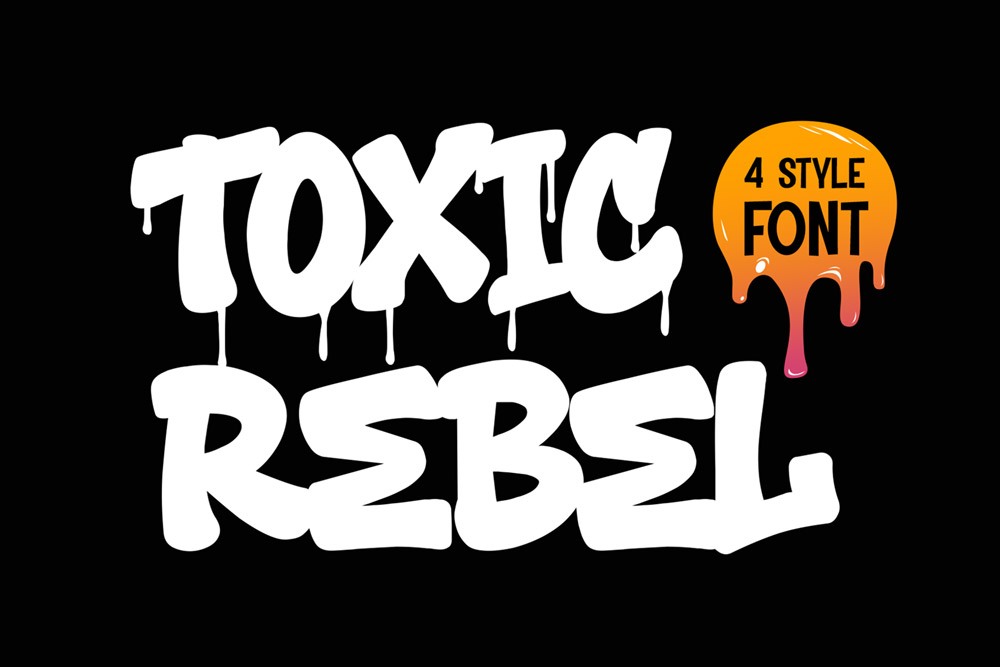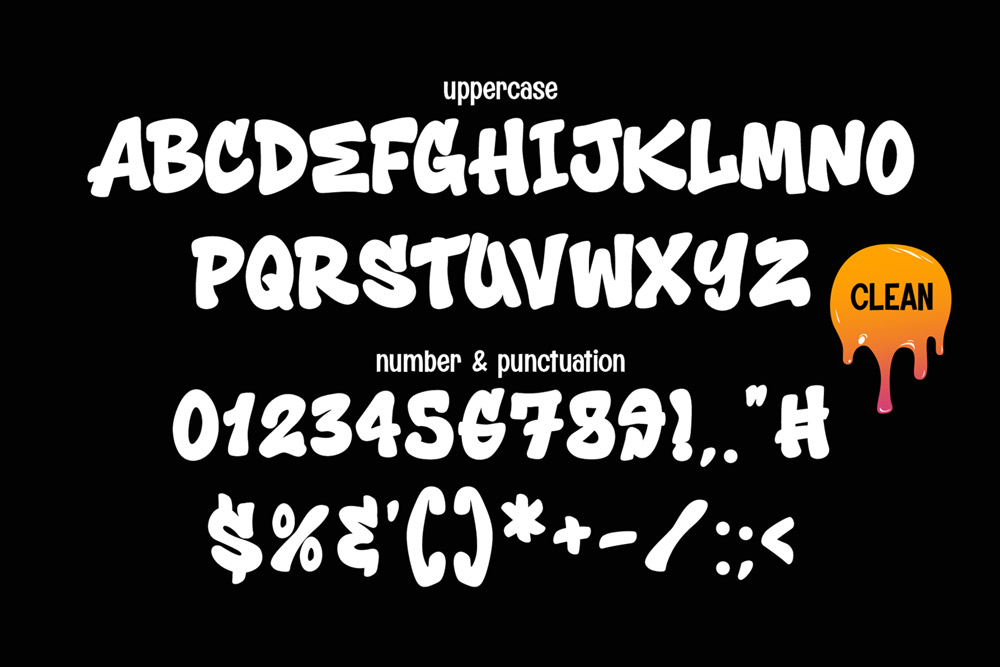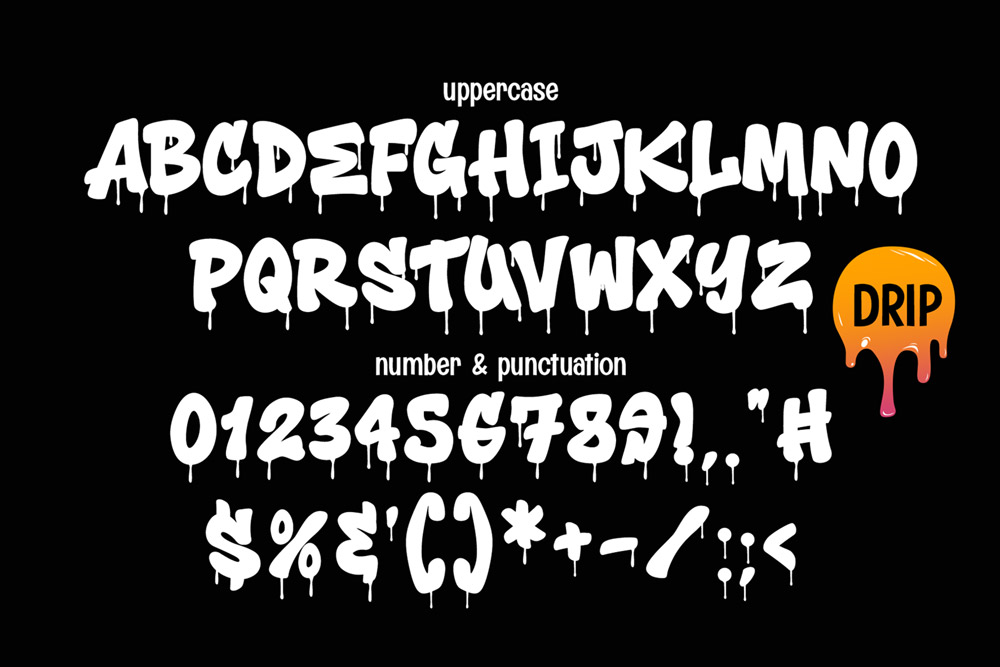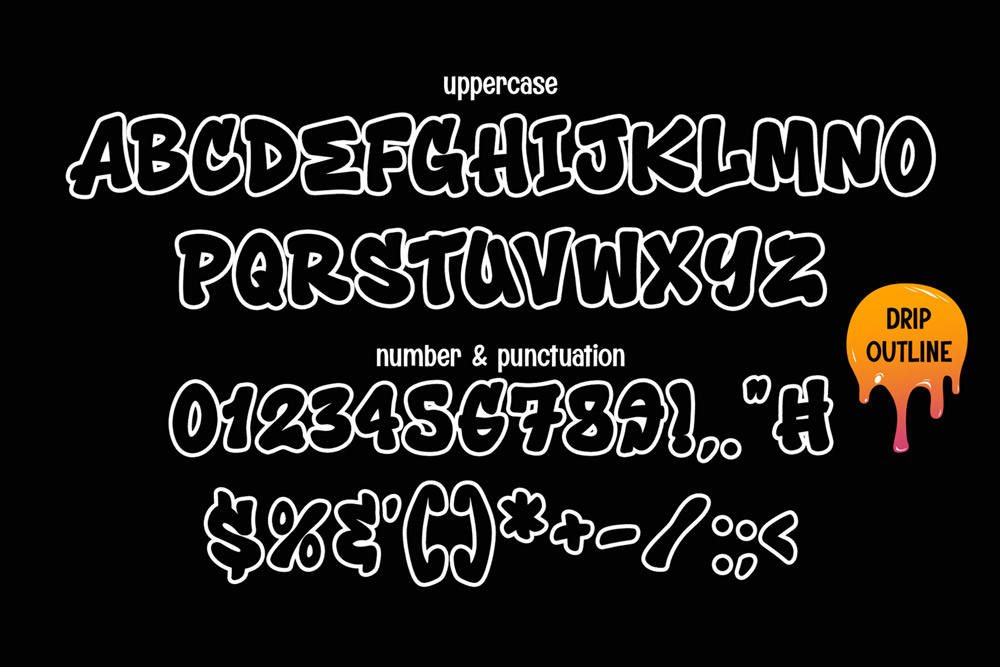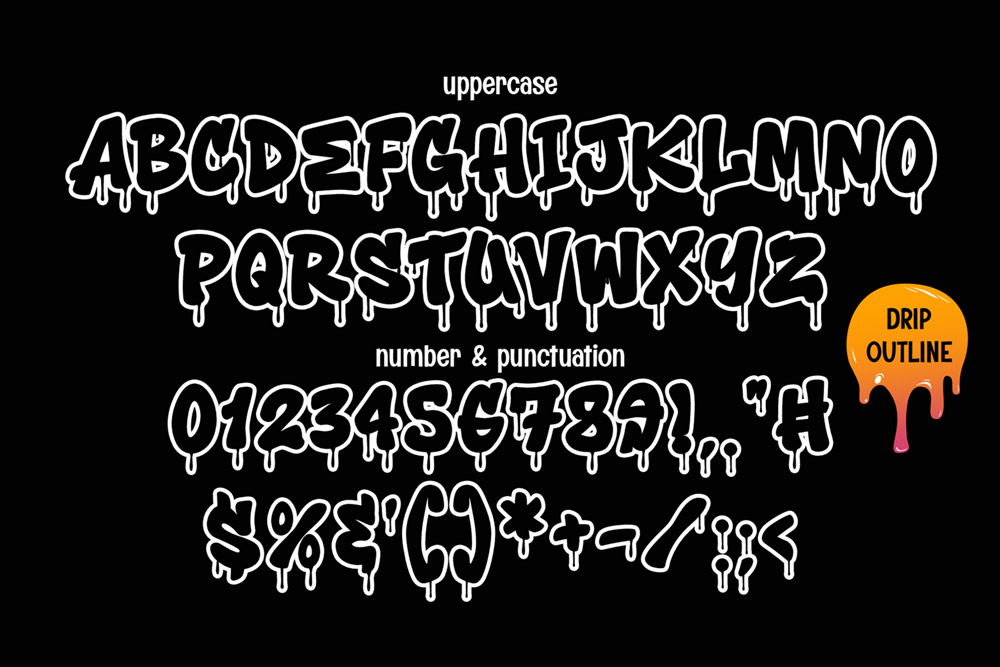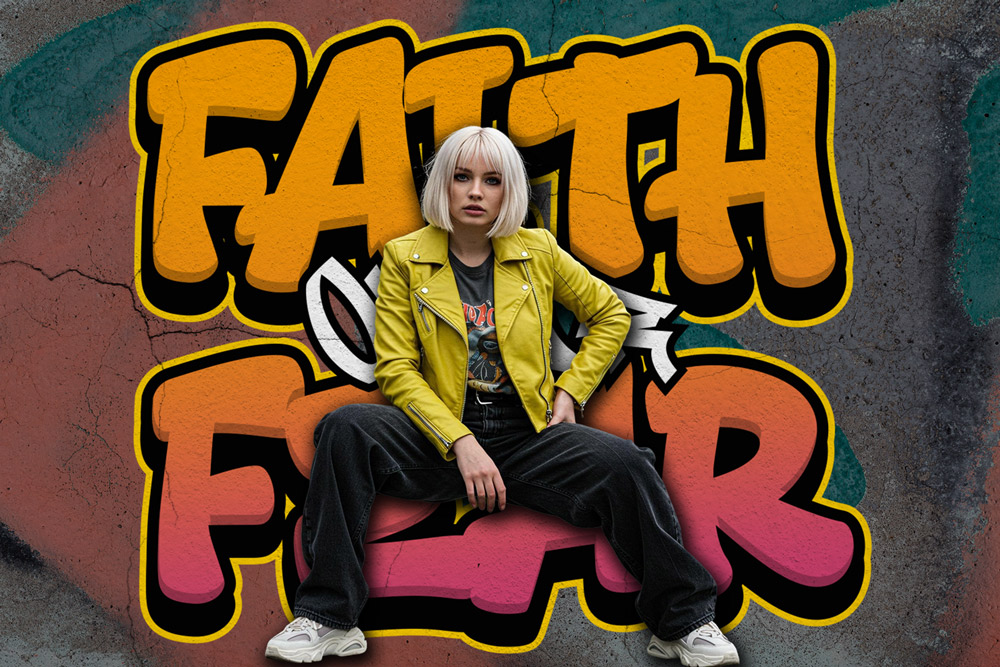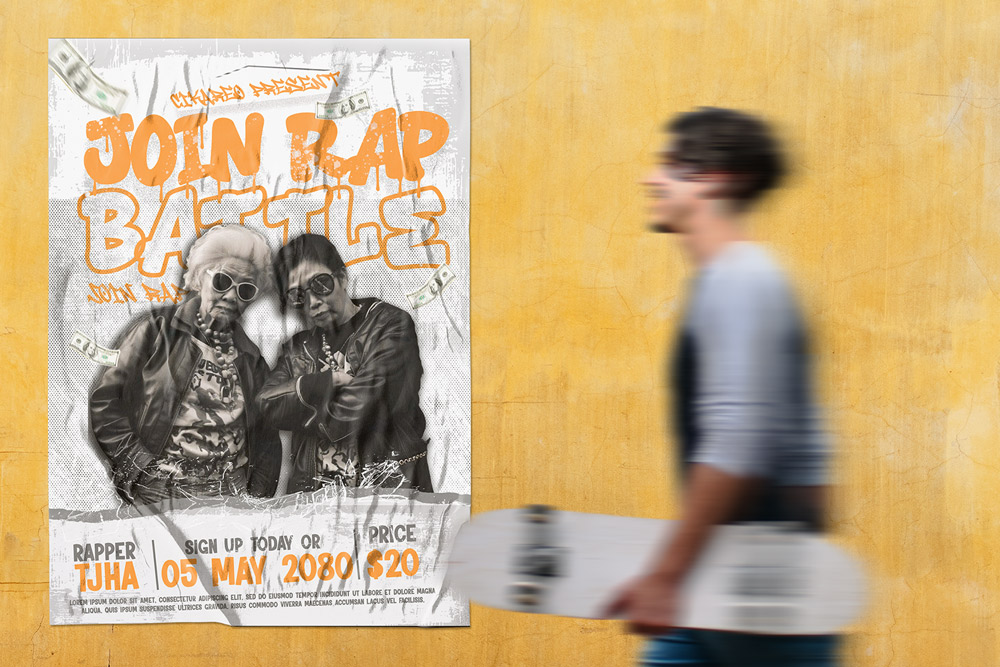
About Toxic Rebel
If you are searching for a bold graffiti font that captures the rebellious energy of urban streets, look no further than Toxic Rebel – Outlined Graffiti Font with 4 Styles. This font is designed for creatives who want to inject raw street aesthetics into their projects while keeping flexibility and multilingual usability at the core. With uppercase characters, full multilingual support, and four unique styles, Toxic Rebel is more than just a font—it’s a creative weapon for designers who thrive on edgy, rebellious, and high-impact visuals.
Why Toxic Rebel Stands Out in the World of Graffiti Fonts
The graffiti niche is one of the fastest-growing styles in design, especially in streetwear branding, album covers, poster designs, and digital content creation. Toxic Rebel captures the essence of this movement with its powerful outlines, dripping textures, and versatile clean alternatives. It delivers exactly what designers crave: authenticity and readability. Unlike many graffiti fonts that compromise legibility for style, Toxic Rebel finds the perfect balance between street authenticity and professional usability.
This font package is not limited to just one version—it includes four complete styles, each offering unique creative possibilities:
When it comes to design trends, graffiti fonts are dominating creative industries. Toxic Rebel is perfect for designers working on:
Streetwear fashion brands who want authentic graffiti lettering on clothing and accessories.
Music and entertainment covers, especially hip-hop, punk, and underground culture visuals.
Posters, flyers, and event branding with bold, rebellious typography.
Social media designs, where graffiti style grabs instant attention.
Merchandise design like stickers, skateboards, mugs, and backpacks.
The outlined graffiti font format makes Toxic Rebel highly versatile. You can use the outlined styles for layering, shadows, or adding textures, while the drip versions bring raw energy to urban concepts. This flexibility allows designers to experiment freely and adapt the font to a wide range of creative projects.
Key Features of Toxic Rebel – Outlined Graffiti Font
4 Styles in One Package: Clean, Drip, Outlined Regular, Outlined Drip.
Uppercase Characters – bold and strong for impactful headlines.
Full Multilingual Support – expand your design reach globally.
Street-Inspired Authenticity – perfect balance between graffiti vibe and readability.
Optimized for Print & Digital – from posters to websites.
Perfect for Layering & Pairing – outlined fonts allow flexible styling.
Why Designers Love Toxic Rebel
Designers around the world love Toxic Rebel because it doesn’t just look like graffiti—it feels like graffiti. Each stroke is designed with the energy of the street in mind, delivering raw authenticity while still maintaining clean outlines for professional results.
Versatility: With four distinct styles, one font family gives you multiple creative directions.
-
Pairing Power: Toxic Rebel works amazingly well with other graffiti fonts like Meltdown Phantom, creating layered, wild graffiti compositions.
-
Readability: Unlike some graffiti fonts that sacrifice legibility, Toxic Rebel keeps your message clear and bold.
-
Global Usability: Thanks to multilingual support, designers can use this font across languages—perfect for international brands and projects.
The Energy of Outlined Graffiti Fonts in Design
Outlined graffiti fonts are trending because they allow maximum flexibility. With Toxic Rebel, the outlined styles can be layered with colors, shadows, or textures to create 3D graffiti effects. Dripping versions add motion and raw urban energy, making them perfect for rebellious campaigns and edgy merchandise.
Imagine a streetwear collection with Toxic Rebel outlined logos across hoodies and caps, or a music festival poster dripping with rebellious energy. That’s the power of this font. It turns simple text into a bold graffiti masterpiece.
Font Pairing for Maximum Impact